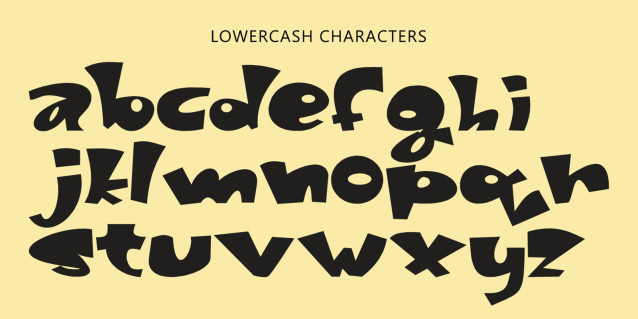
Puckiss Font
Puckiss Font is a playful and romantic font designed to bring a sweet, cheerful, and love-filled vibe. Inspired by soft yet expressive handwriting, Puckiss is perfect for wedding invitations, greeting cards, packaging design, and any creative project that needs a warm, personal touch.
With flowing letterforms, heart accents or decorative swirls on select characters, and a light, rhythmic style, Puckiss radiates a friendly and affectionate personality. It’s the perfect font to convey heartfelt messages—without losing its sense of style.